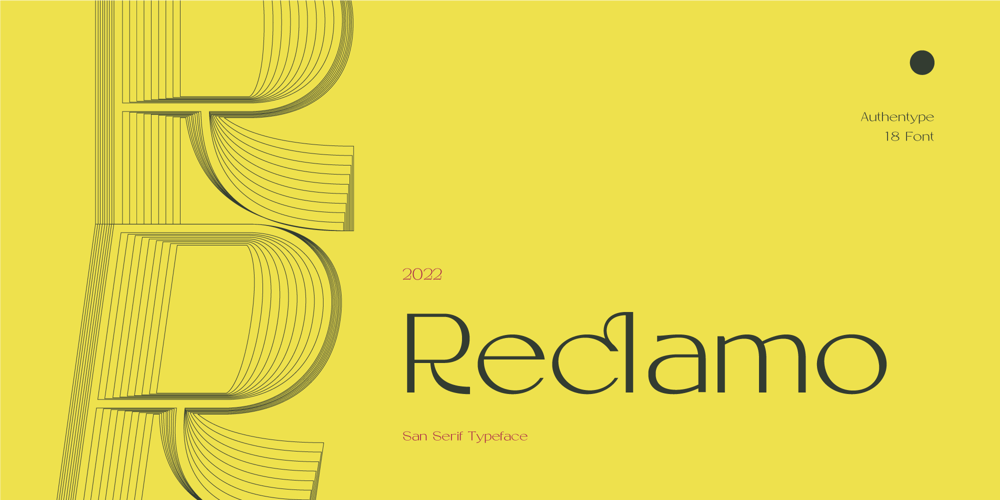
Reclamo Font Family was designed by Ekayasa and published by Authentype. Reclamo contains 18 styles and family package options. ReclamoA simple design from the San Serif family with a few contrasting accents. Inspired by the dove beauty products brand, I think I can incorporate a simple, clean, and elegant print into the San Serif family. Reclamo is a Balinese word for advertising. It is transmitted orally and is anchored deep in people’s minds. 386 Glyphs | 18 Font Works on PC & Mac Simple installations Accessible in the Adobe Illustrator, Adobe Photoshop, Adobe InDesign, even work on Microsoft Word. PUA Encoded Characters – Fully accessible without additional design software. Fonts include multilingual support for; ä ö ü Ä Ö Ü ß ¿ ¡ ____ Image used : All photographs/pictures/logo/vector used in the preview are not included, they are intended for illustration purpose only.Thank you Hope you enjoy with our font!Font Variablevariable fonts